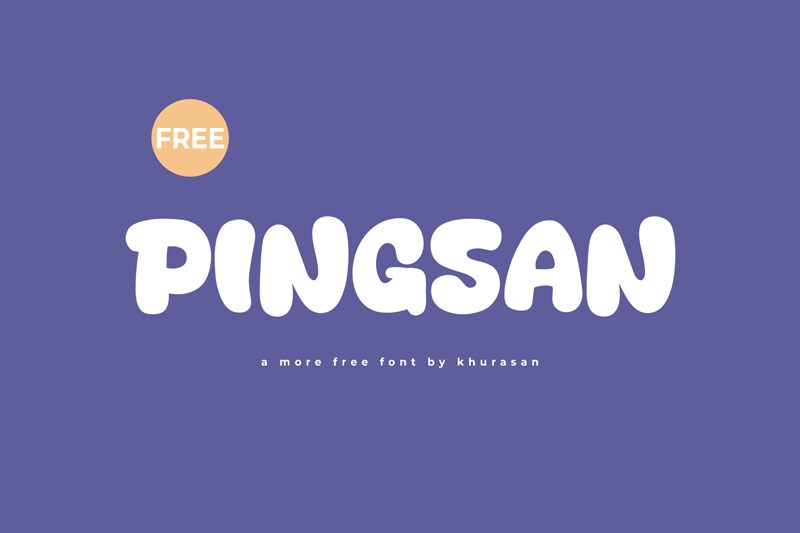
Pingsan
Pingsan, crafted by Khurasan, brings the whimsy of cartoons into the realm of typography with its playful and bold character. Its robust form exudes confidence and friendliness, making it a delightful choice for capturing attention and injecting fun into any design. The exaggerated curves and sturdy lines evoke a sense of lightheartedness while ensuring excellent readability.
Its charming quirks make Pingsan ideal for projects that call for a touch of joy – from captivating children's book titles to lively branding materials or engaging event posters. This font is designed to add a spark of animation and personality wherever it's employed, promising to leave a memorable impression on viewers of all ages.